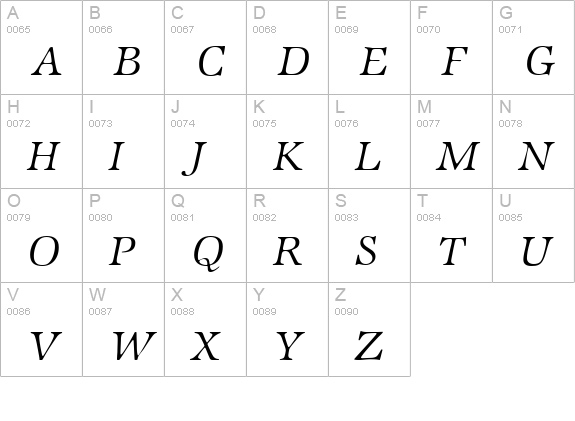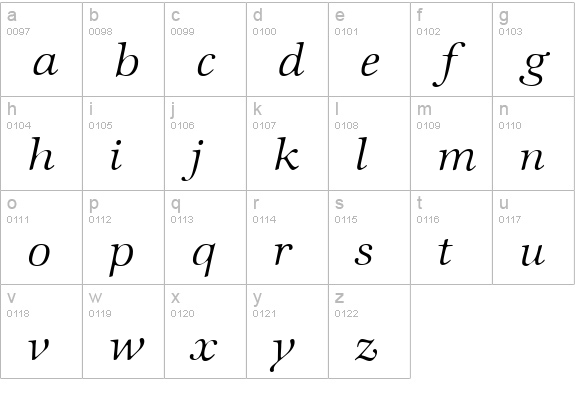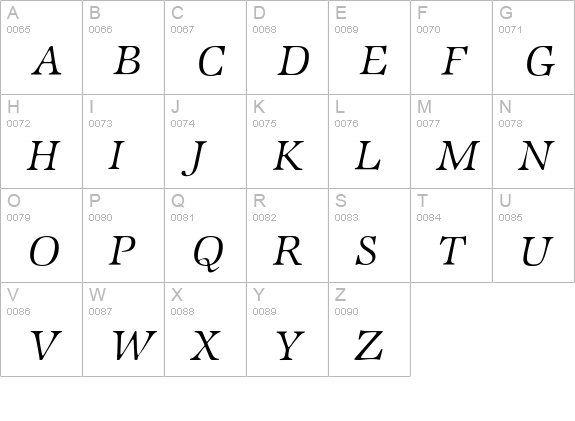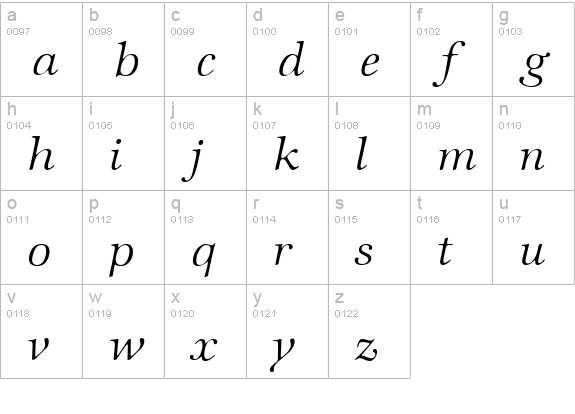
ZabriskieInternational-Light-Italic is a refined, elegant, italic variant in the ZabriskieInternational typeface family \xE2\x80\x94 well suited to elegant body text, refined sub-headings, and luxury branding.
ZabriskieInternational-Light-Italic is a sleek and elegant font that exudes sophistication and style. Its delicate curves and subtle slant give any text a touch of refinement and modernity. Perfect for adding a touch of class to any design project, this font is versatile and can be used for a variety of purposes, from invitations to branding to editorial layouts. And the best part? ZabriskieInternational-Light-Italic is completely free to download at FontsMarket.com! Take advantage of this amazing opportunity to enhance your designs with this beautiful typeface without breaking the bank. Download it today and elevate your projects with the timeless charm of ZabriskieInternational-Light-Italic.